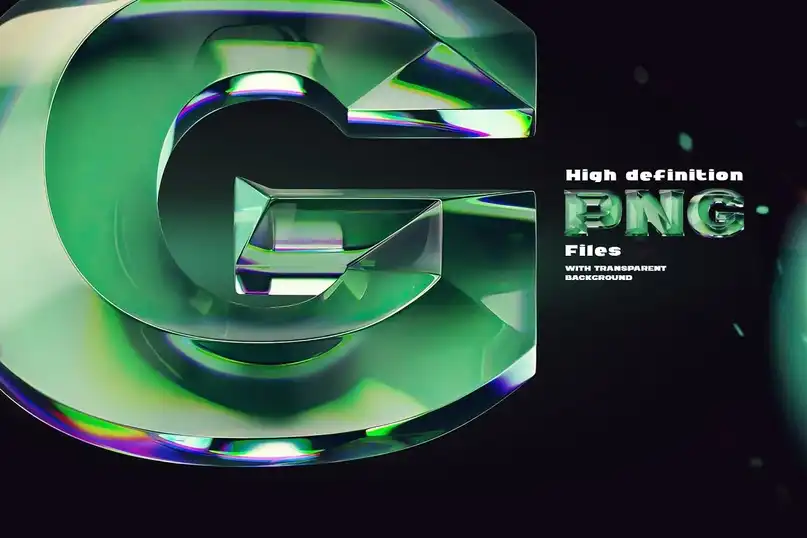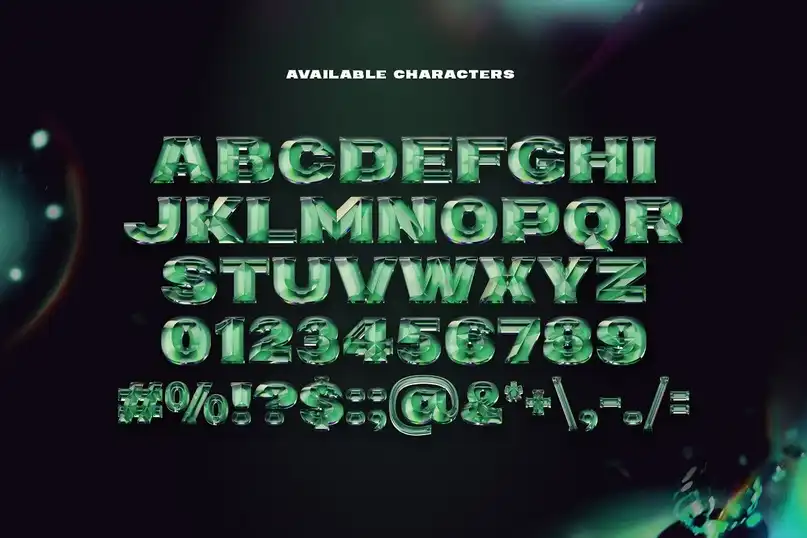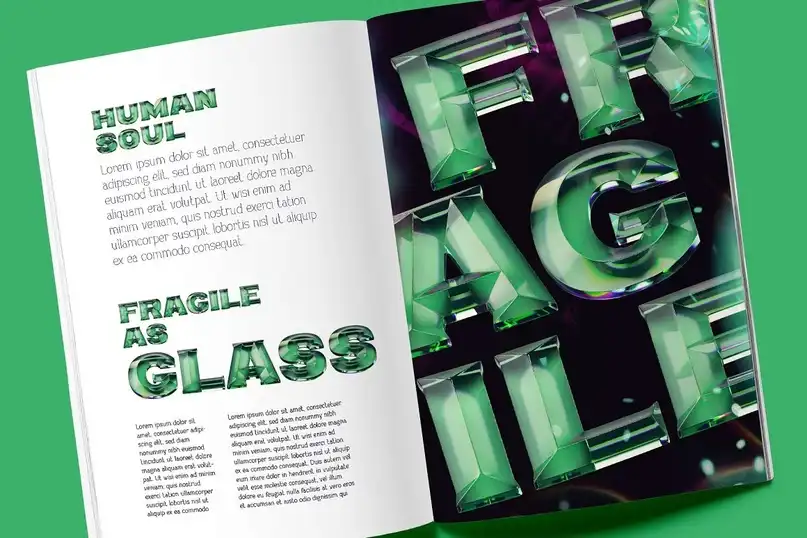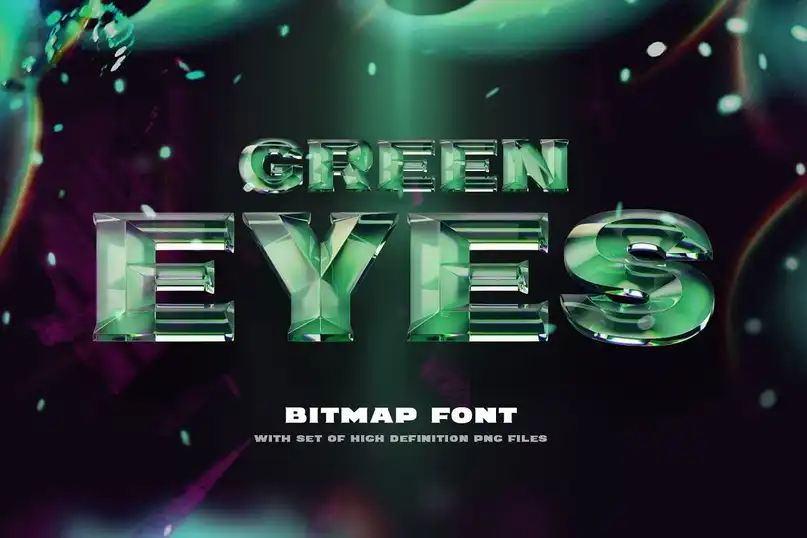
Welcome to the World of Green Eyes – Bitmap Color Font!
Are you ready to add a dash of magic to your designs? 🎨 This digital download features the stunning Green Eyes – Bitmap Color Font, a mesmerizing 3D rendered typeface that shines like sparkling green glass! ✨ With its colorful dispersion effect, every letter will pop with vibrancy, making your projects truly stand out. Instant access means you can start creating right away!
The Green Eyes font is not just any ordinary typeface; it’s a color bitmap OpenType-SVG font that can effortlessly be used as a standard OTF font. Plus, we’ve included a set of full-resolution PNG files with a transparent background, giving you even more versatility in your creative toolkit. 🌈
- 3D Rendered Design: Captivating depth and dimension that brings your text to life.
- Color Bitmap OpenType-SVG: Use it as a traditional font or enjoy the colorful SVG benefits.
This font is ideal for graphic designers, illustrators, and anyone looking to add a touch of elegance and fun to their projects! Whether you’re crafting a poster, logo, or social media graphic, the Green Eyes font will elevate your work. 💚